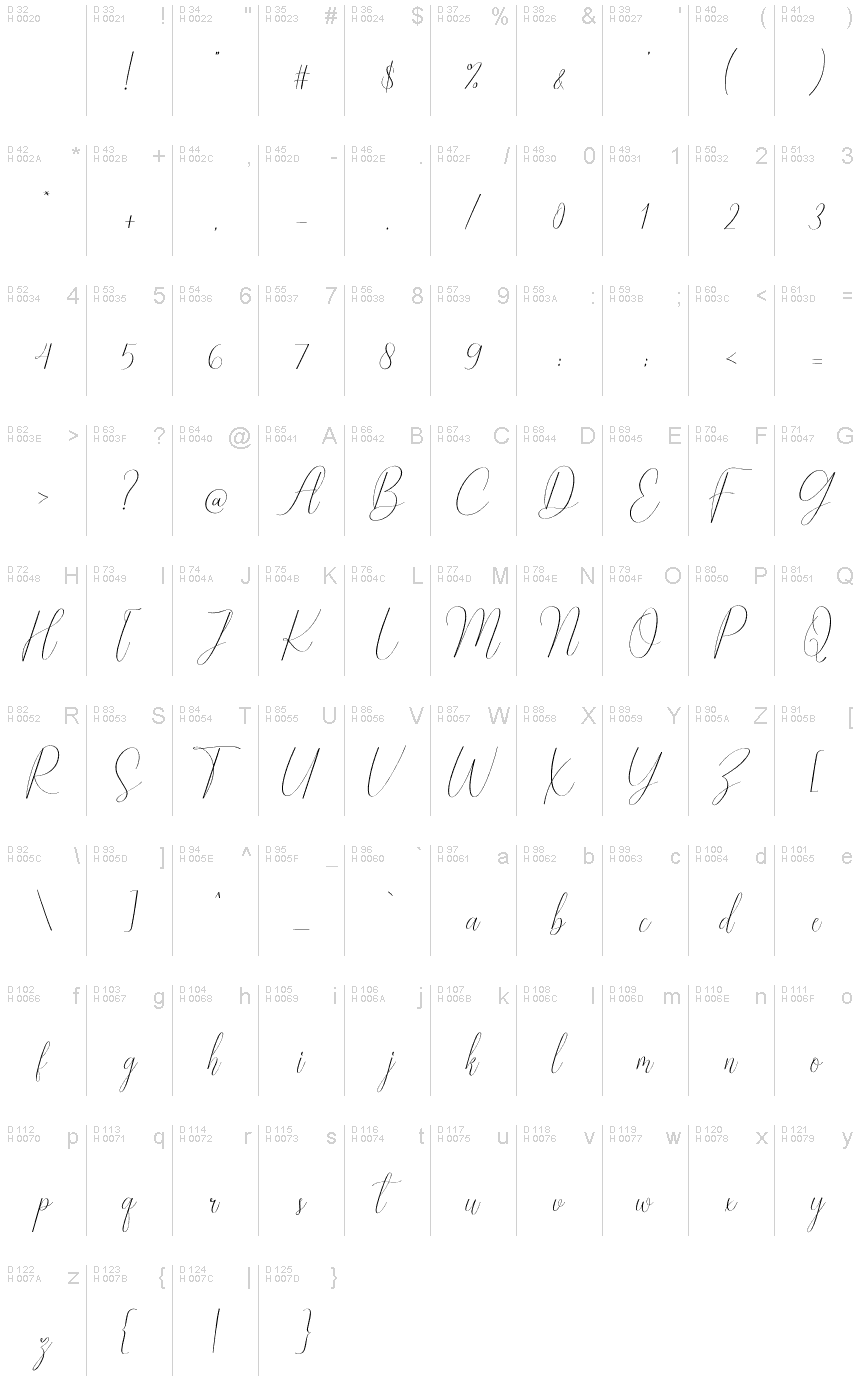
Female
Female, designed by Erik Studio, is an exquisite script font with a touch of femininity. Its extra-light weight and semi-condensed width add to its delicate charm. This handwritten font style exudes class, elegance, and a contemporary appeal.
Perfect for a wide range of projects, Female is ideal for creating captivating logos, establishing strong brand identities, designing elegant invitations and stationery, crafting beautiful wedding designs that capture the essence of romance, and creating eye-catching social media posts that leave a lasting impression.
Let Female elevate your designs with its refined aesthetic.